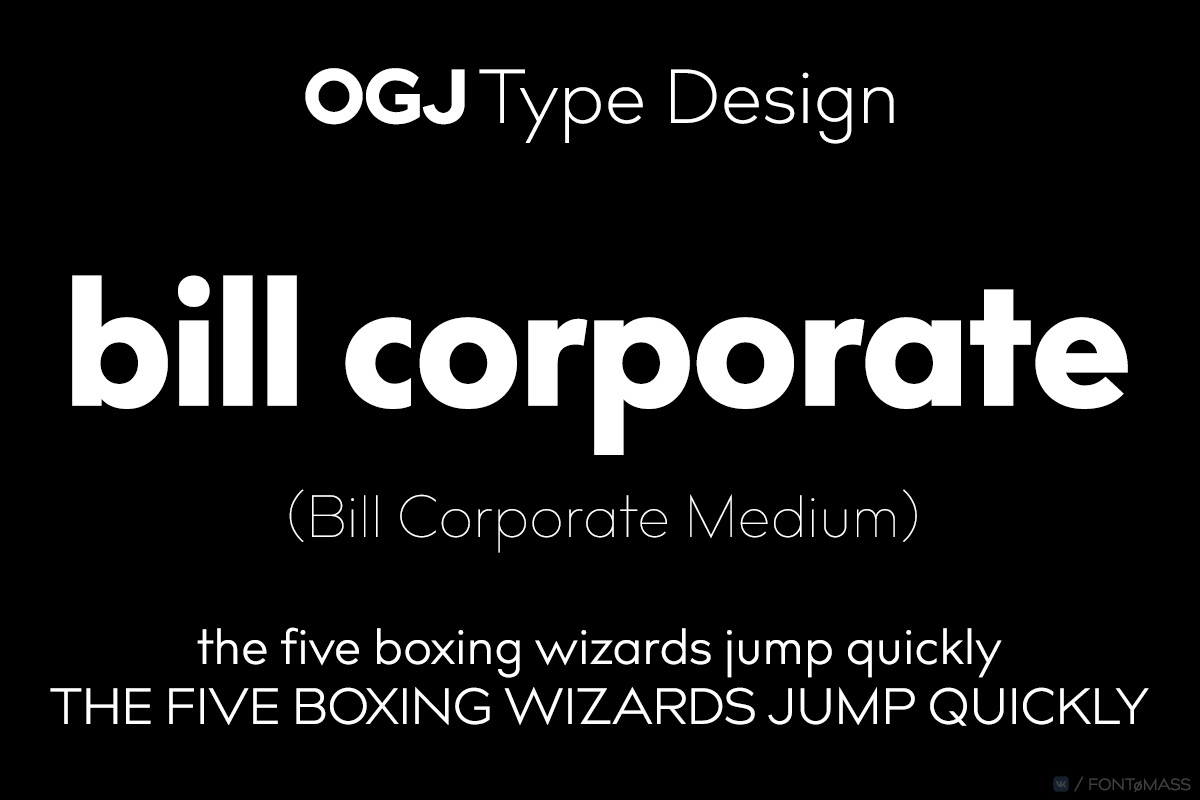
Bill Corporate Medium Font
Bill Corporate Medium Font is perfect for professional business communications, corporate identity systems, executive presentation materials, annual report layouts, business correspondence, financial documentation, company policy manuals, professional signage, corporate website typography, and institutional brand applications.
What makes Bill Corporate Medium Font so exciting is its remarkable ability to strike the perfect balance between authoritative presence and approachable professionalism through medium-weight letterforms that embody the ideal corporate communication standard. This versatile typeface represents the gold standard of corporate typography, featuring characters that seem calibrated for maximum business effectiveness across all professional contexts. The font's balanced design elements perfectly merge executive authority with accessible professionalism, creating an indispensable tool that communicates corporate competence, business reliability, and professional excellence, making it essential for organizations that need to project consistent corporate identity while maintaining versatile functionality across diverse business applications.
Bill Corporate Medium Font comes in multiple font families including Regular, Bold, Light, Italic, Bold Italic, Professional, Business, and Standard variations. Each family member maintains the core corporate characteristics while offering different professional weight levels and stylistic approaches to suit various business communication and corporate identity requirements.
The corporate precision in Bill Corporate Medium Font makes it particularly effective for established businesses and professional organizations where maintaining consistent corporate identity and reliable business communication is crucial for brand integrity and professional credibility. Its balanced letterforms work exceptionally well across all corporate applications, from business cards to corporate headquarters signage, maintaining consistent professional impact while providing maximum versatility for diverse business needs.
Corporate branding professionals recognize how Bill Corporate Medium Font transforms ordinary business communications into consistent expressions of corporate excellence and professional reliability. The typeface's comprehensive character set includes extensive business symbols, corporate punctuation, and professional features that accommodate complex organizational requirements and comprehensive corporate communication standards.
For creative professionals serving established corporations, professional service firms, and business organizations requiring consistent corporate identity, Bill Corporate Medium Font serves as the ultimate foundation for creating memorable corporate experiences that capture the essential qualities of business professionalism, corporate reliability, and institutional excellence that define successful organizations maintaining consistent brand identity across all professional communications and business applications in competitive corporate environments.